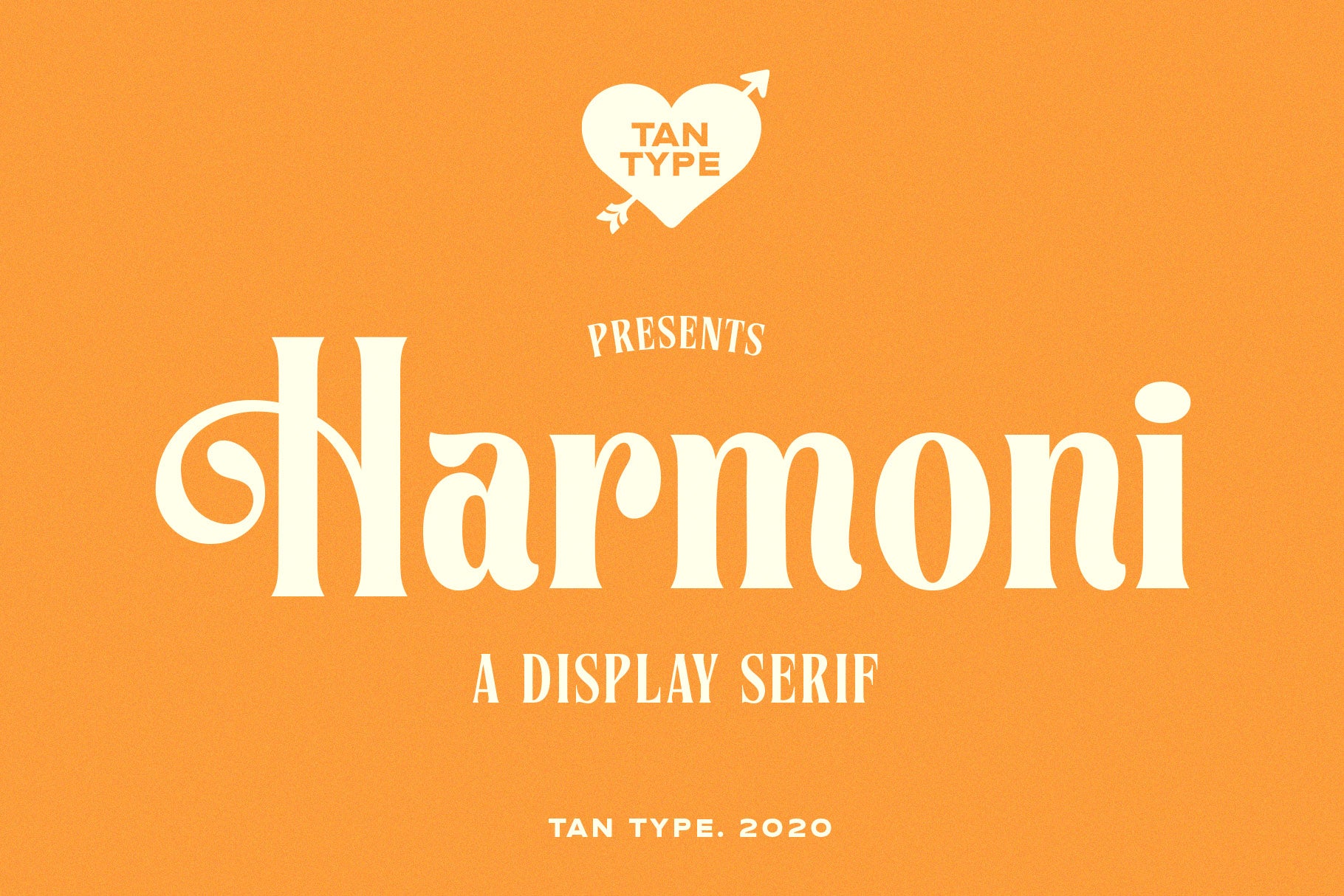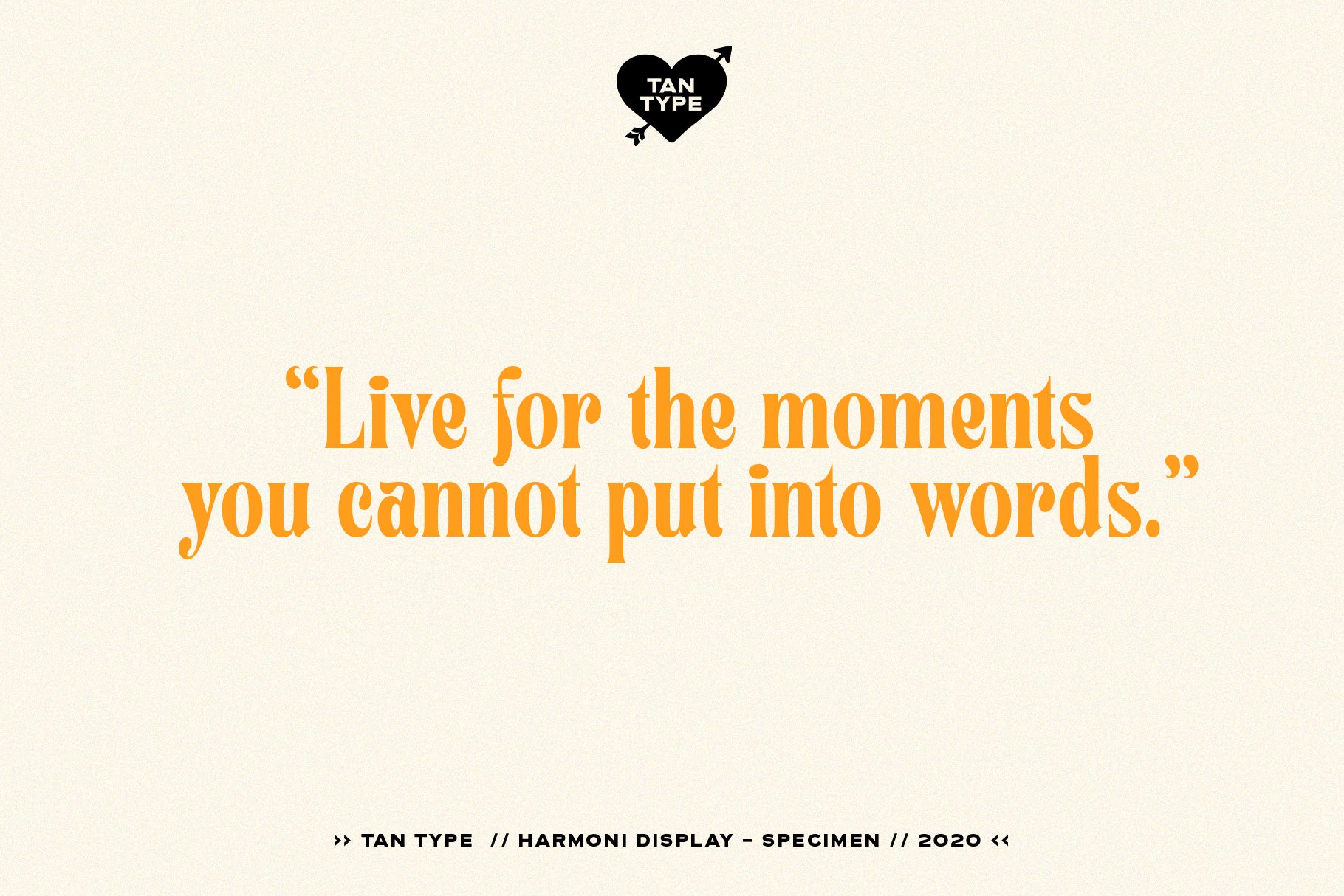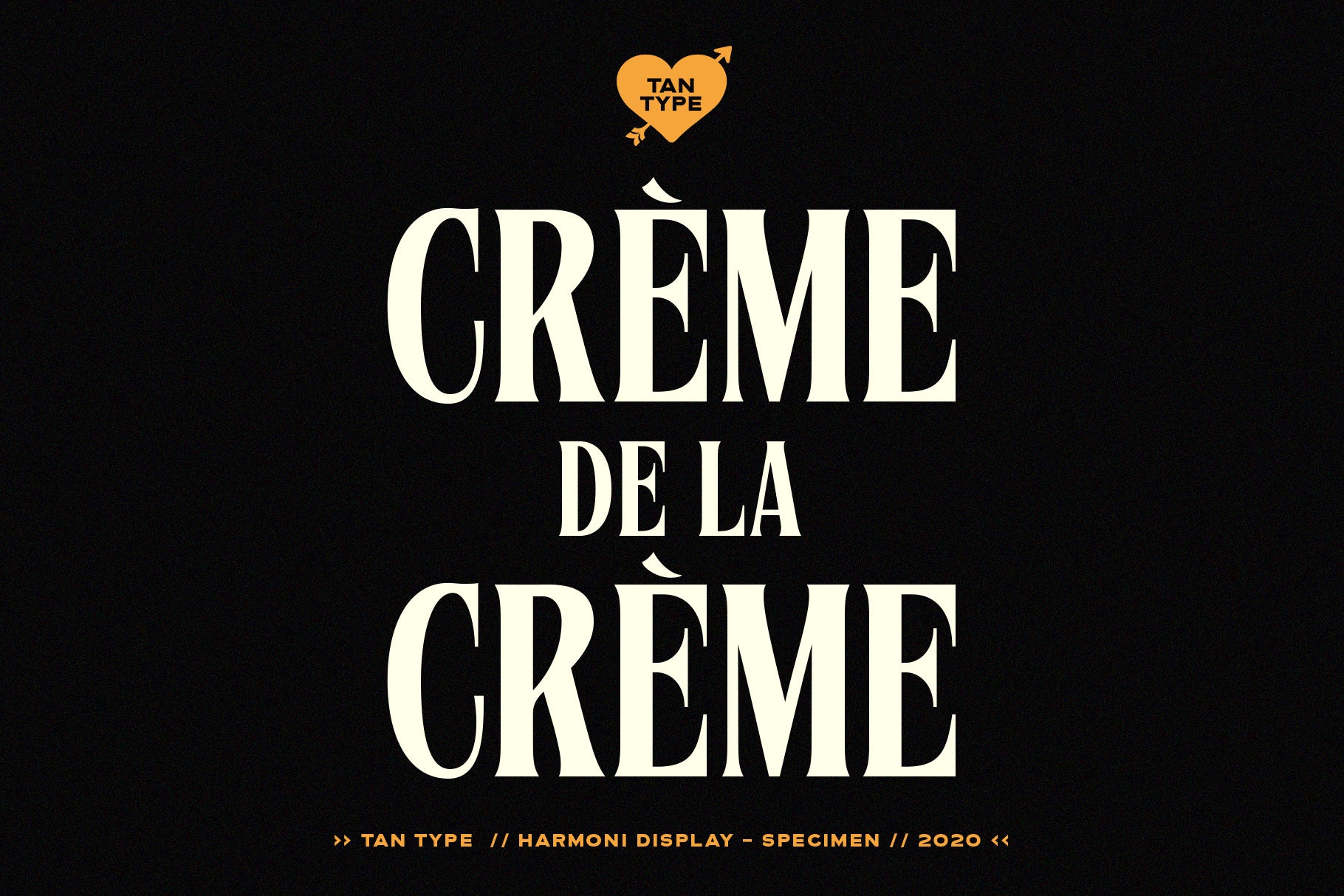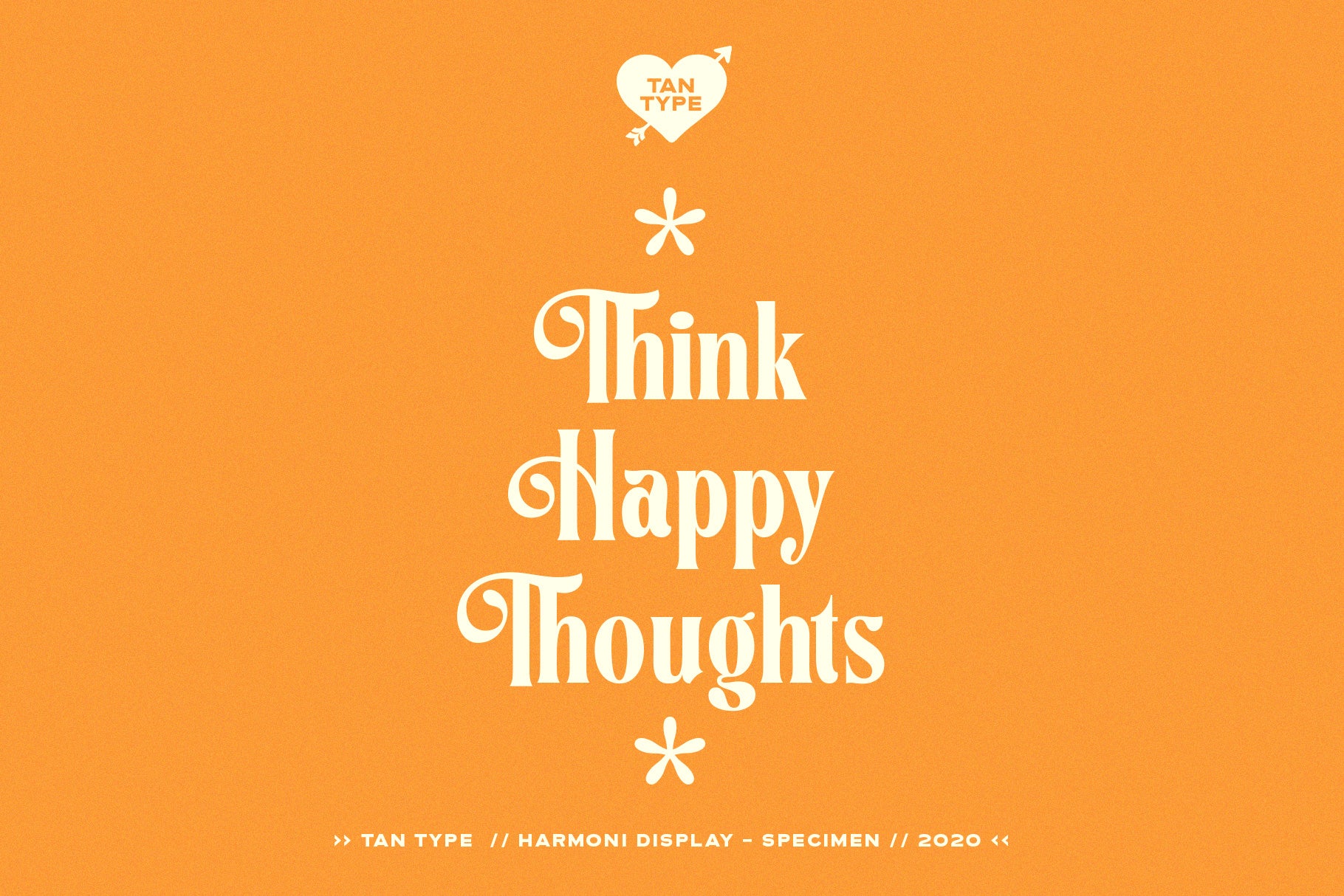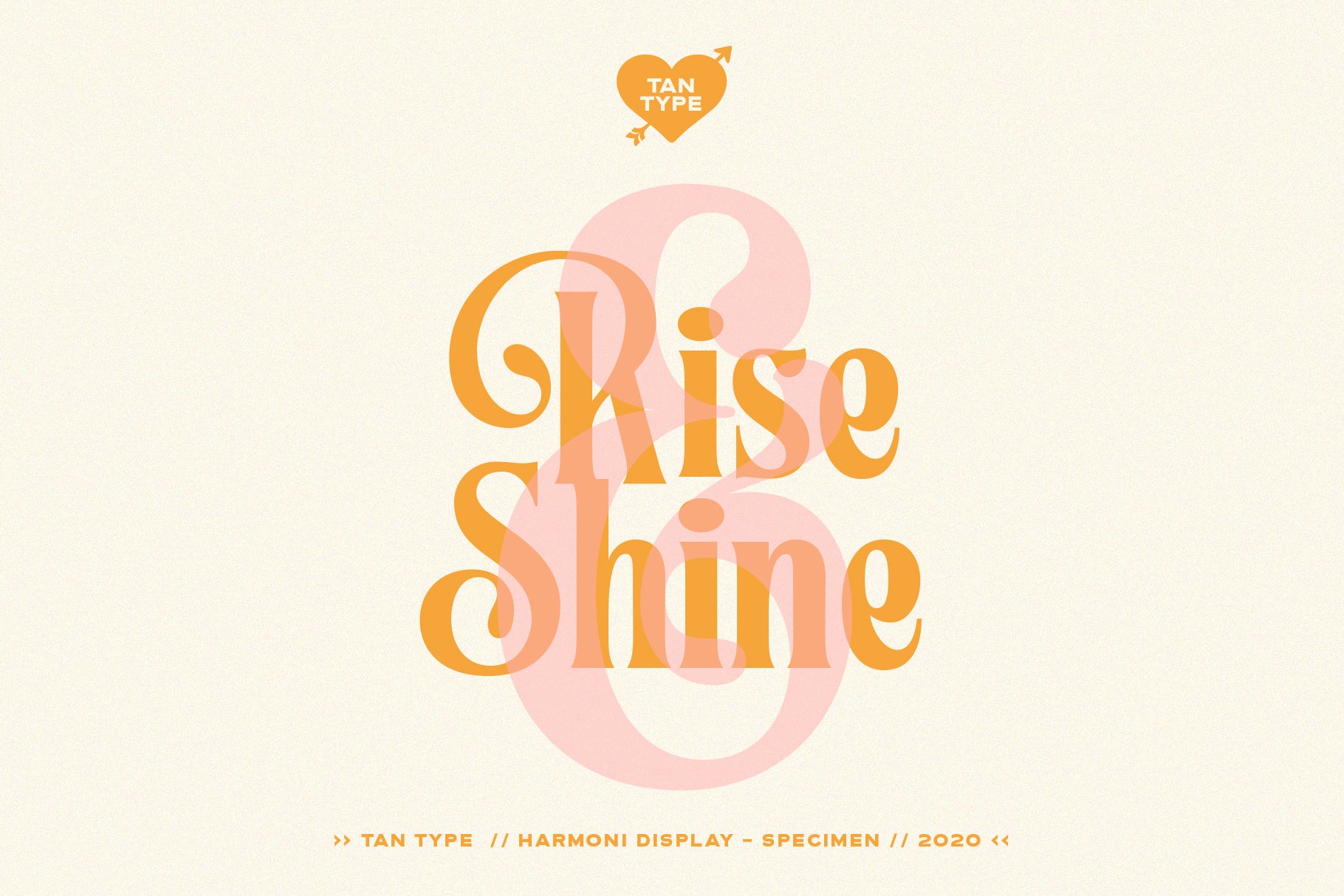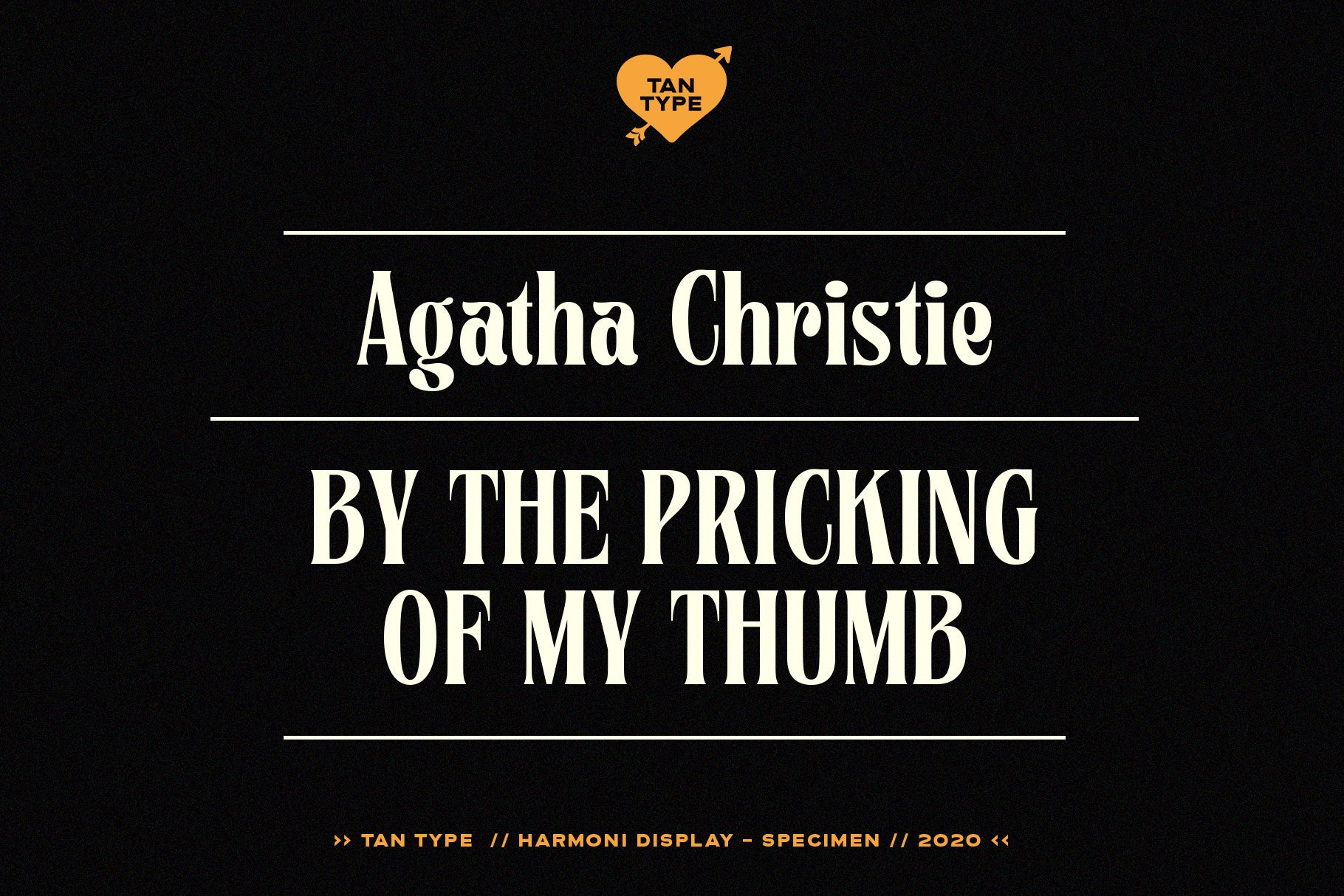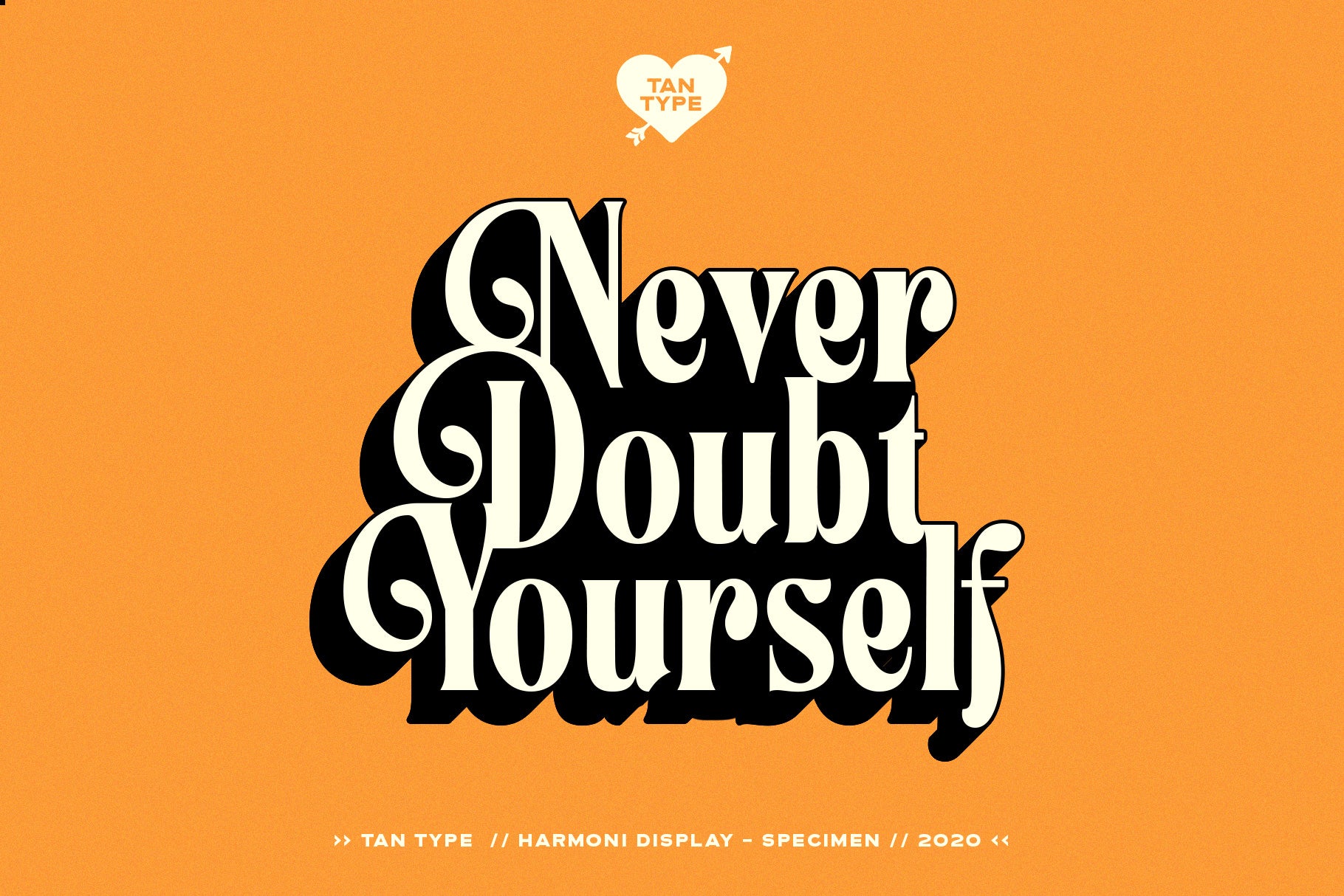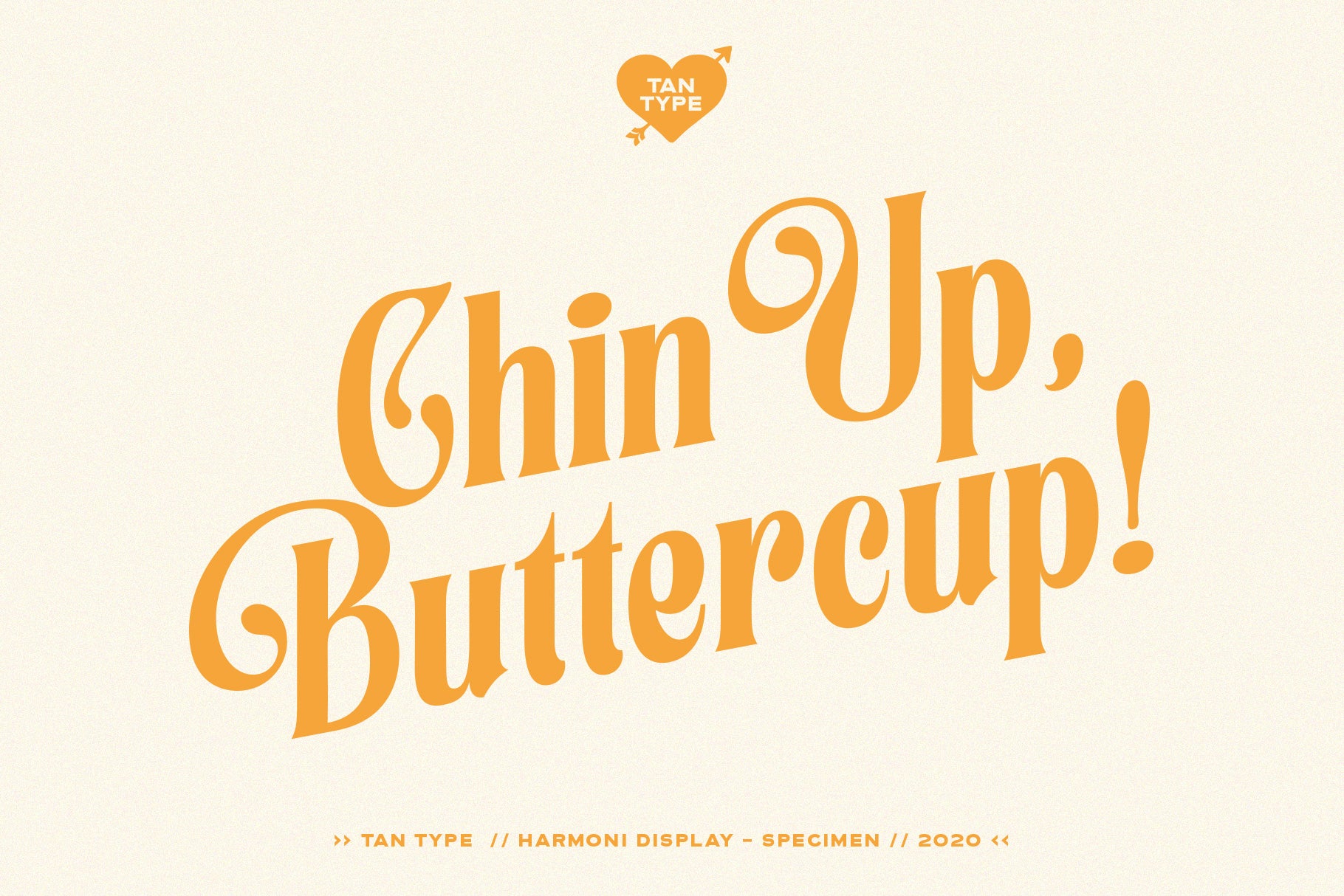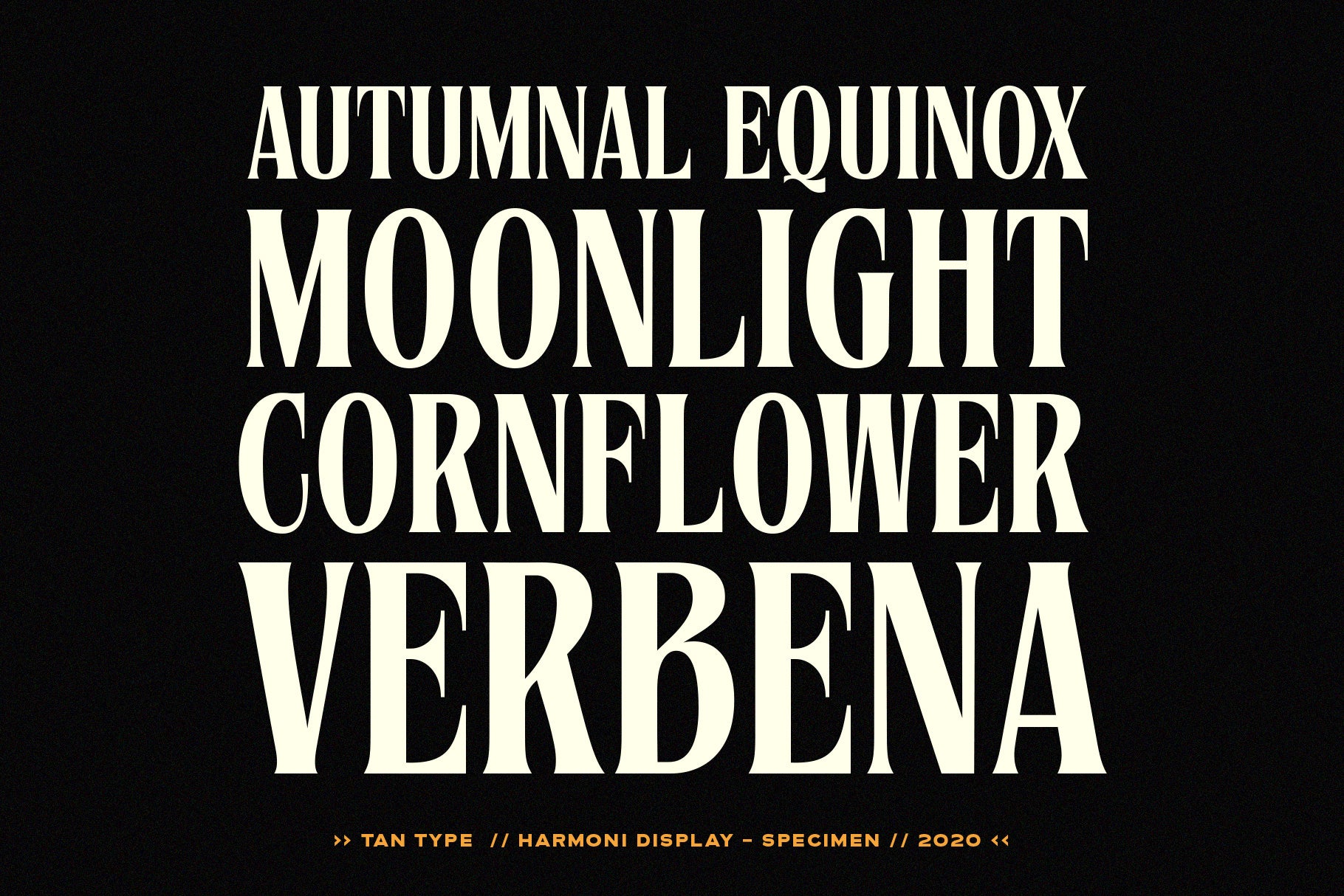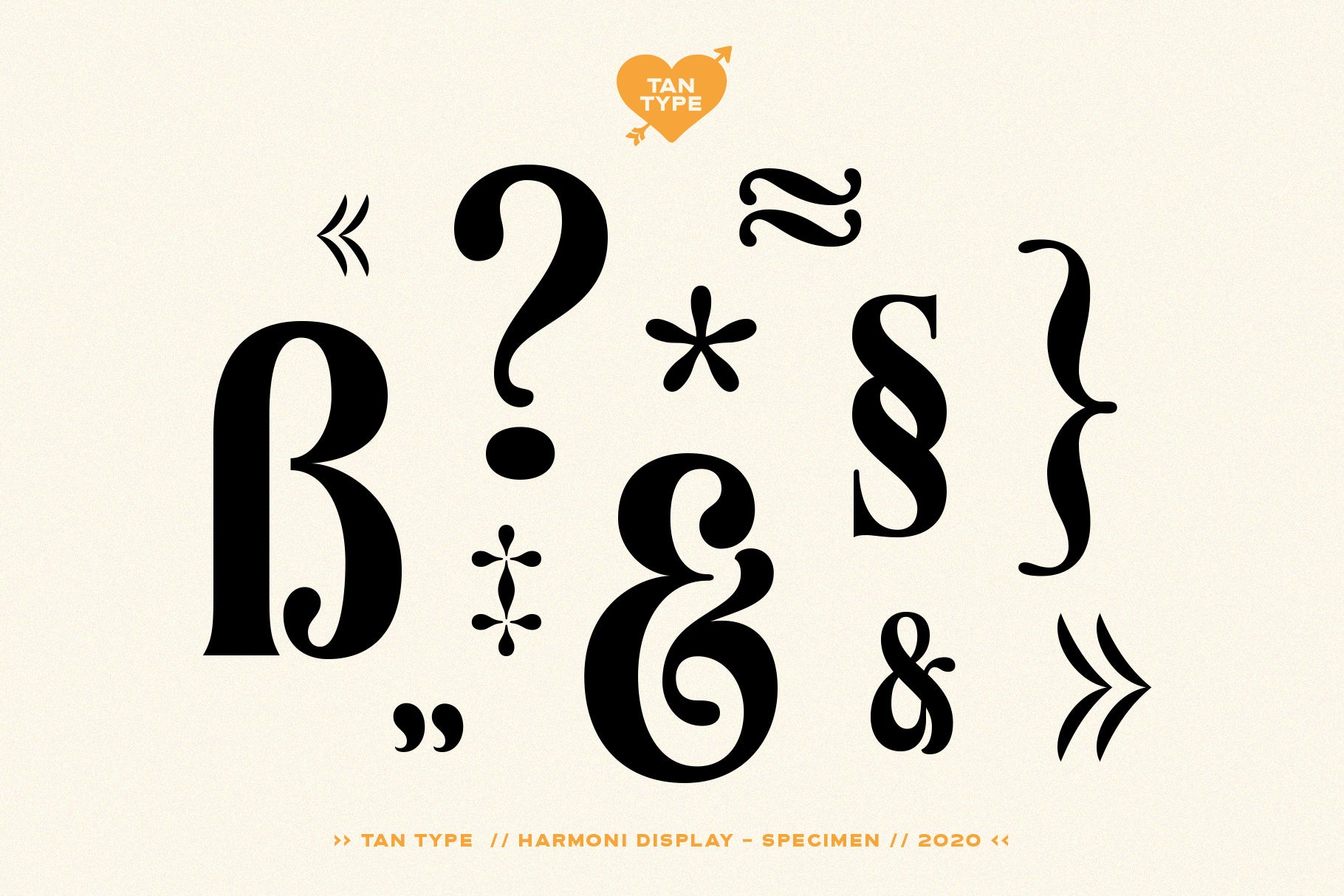
HARMONI is a charming display serif font with a nostalgic flair and graceful curves. Its distinctive swashes and bold letterforms evoke vintage poster aesthetics while remaining perfectly polished for modern branding.